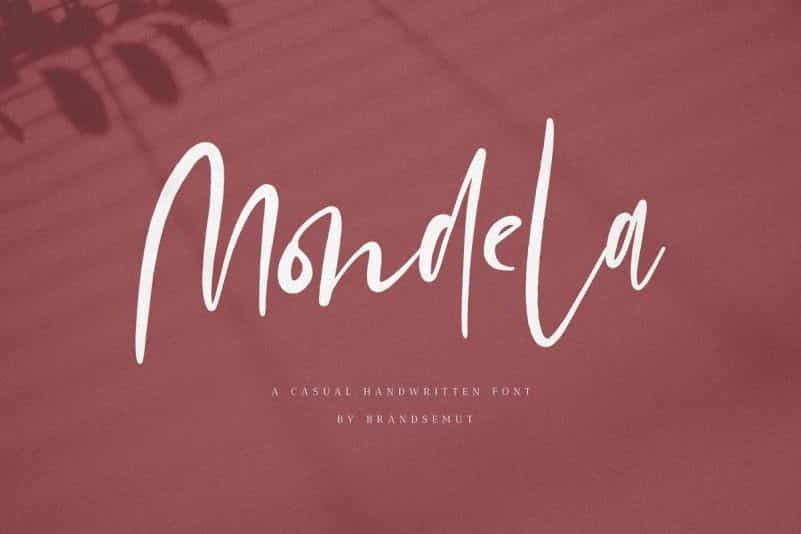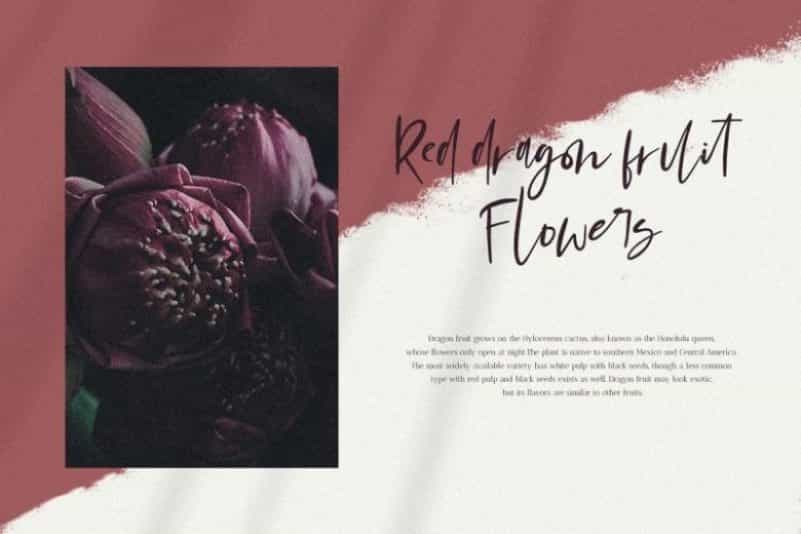
Mondela Font is a vintage script with contemporary features. It is a strong statement in any design. This script is a special occasion and holiday celebration in its styling while meeting the confidence and free spirit required.